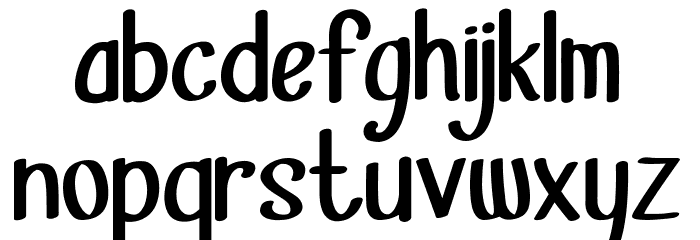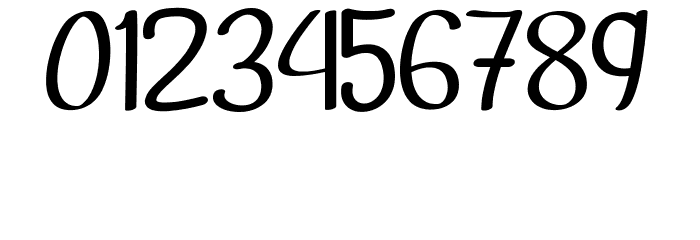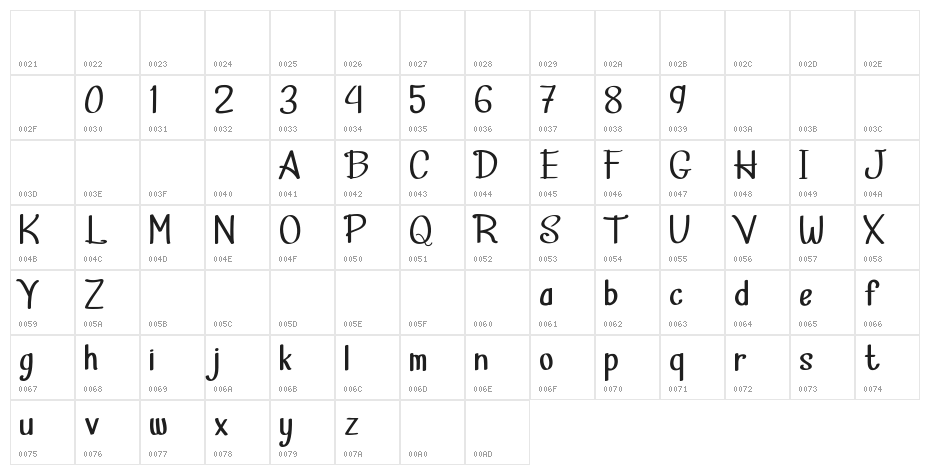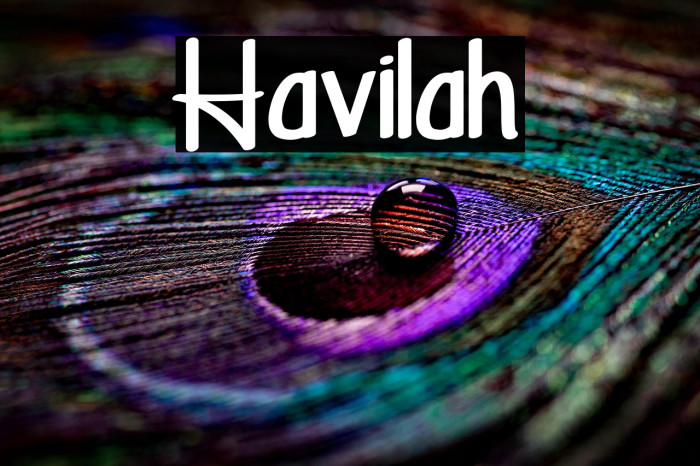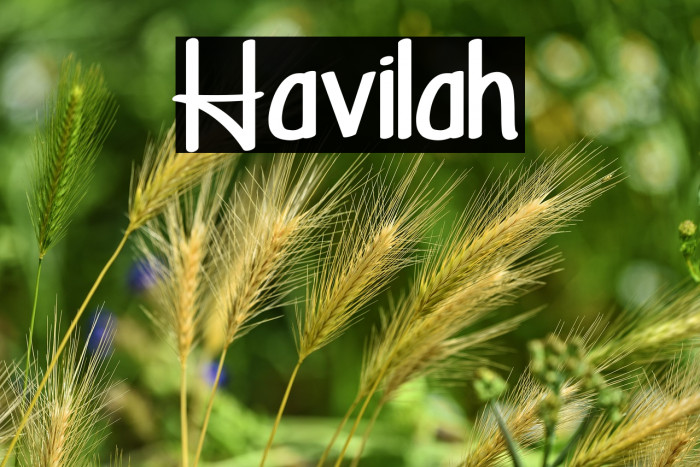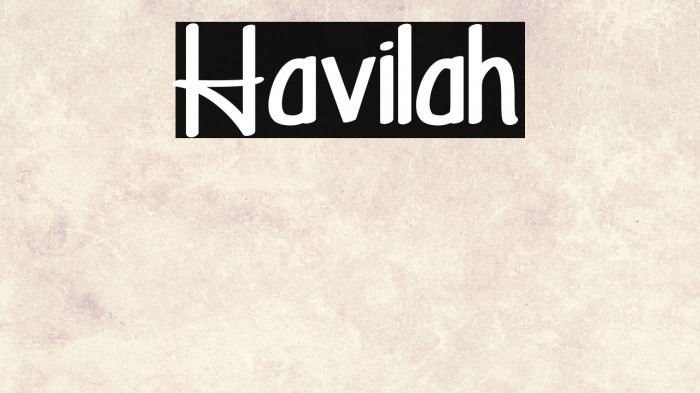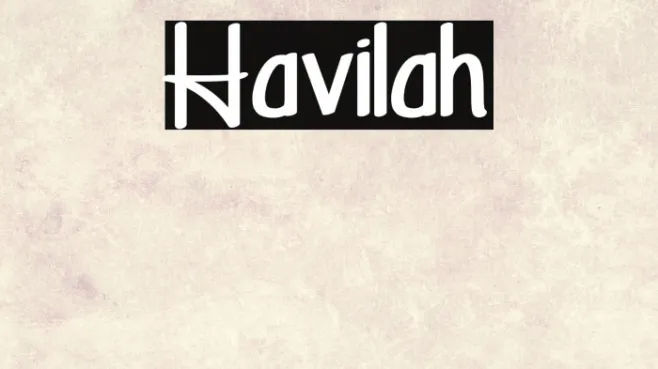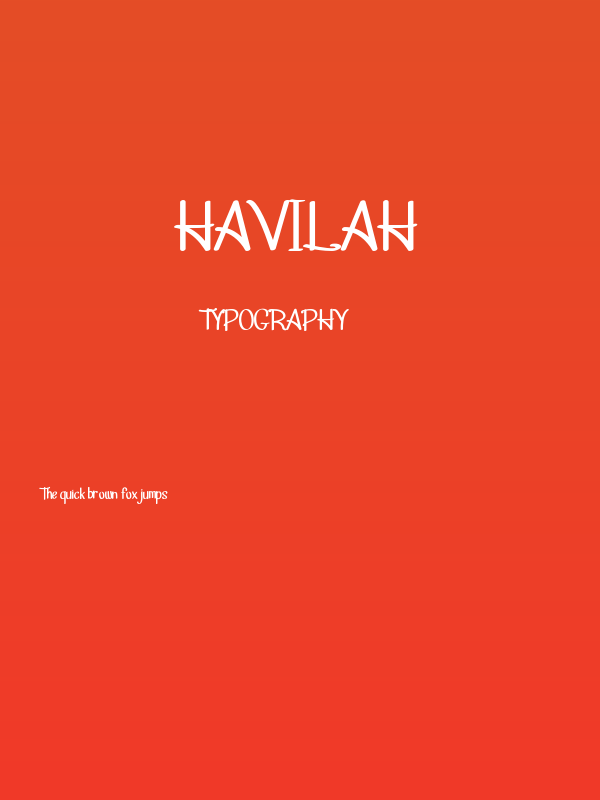
Havilah Font
This font features a playful and whimsical style with a handwritten feel. The uppercase letters have a unique, slightly elongated form with gentle curves and loops, giving them a friendly and approachable appearance. The lowercase letters maintain this playful aesthetic, with some characters exhibiting a slight slant, adding to the casual vibe. The numbers are consistent with the overall style, featuring rounded edges and a slightly informal look. This font's design is well-suited for projects that require a touch of personality and charm.
A playful, handwritten-style font with a whimsical and friendly appearance.
- Proposed Projects: Ideal for children's books, greeting cards, playful branding, and creative projects that require a personal touch.
- Overall Style: Playful, Whimsical
- Use Case: Headlines, Logos, Creative projects